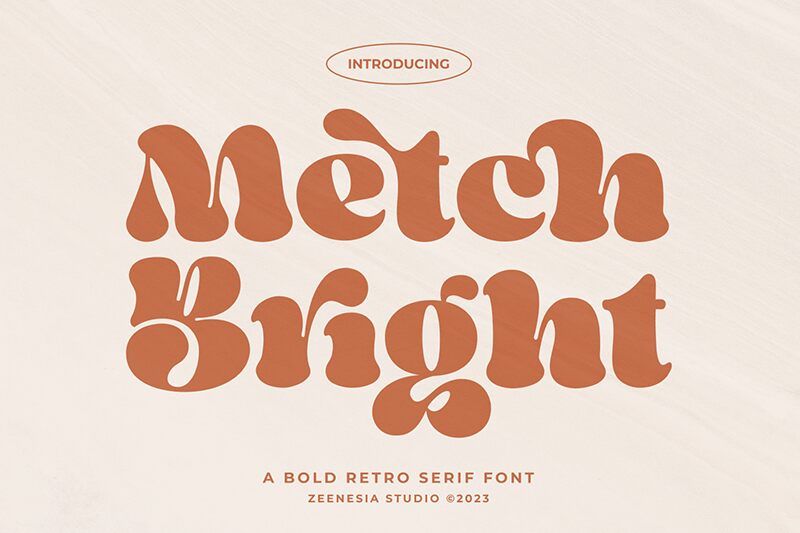
Metch Bright font by Zeenesia Studio is a bold groovy display font with whimsical designs on every character. Its unique style is both retro-inspired and modern, making it decorative with an artistic edge. Inspired by floral elements, this typeface is on a more flamboyant side sure to demand attention when used wherever.
Enjoy Metch Bright in magazines, posters, postcards, websites, logos, social media posts, greeting cards, and book titles. This free display font would also fit excellently in branding projects such as packaging or label design.